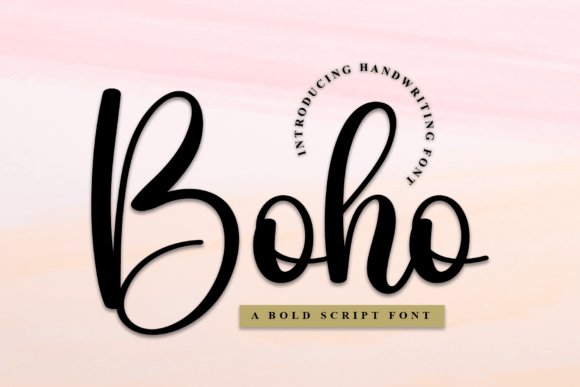
About Boho Font
Boho is a distinctive handwritten font characterized by its unique, round-lettered style, which has been meticulously crafted to achieve desired results. This versatile font is ideal for writing titles, invitations, letters, and various other products, adding a creative and charming touch to your designs.
The round-lettered design of Boho creates a playful and friendly atmosphere, making it suitable for a wide range of applications. Its versatility allows you to use it in different contexts, from digital designs to printed materials, ensuring that your text stands out and captures attention.
Whether you’re working on event invitations, greeting cards, social media graphics, or any other creative project, Boho’s round-lettered handwriting adds a touch of personality and creativity to your text. Its unique style sets it apart, making your designs visually appealing and memorable to your audience.
Embrace the distinctive charm of Boho in your designs, and let its round-lettered and handwritten aesthetic enhance your creative projects. Whether you’re designing titles, invitations, or any other type of text-based content, Boho is sure to add a delightful and unique flair to your work, making it engaging and visually striking.